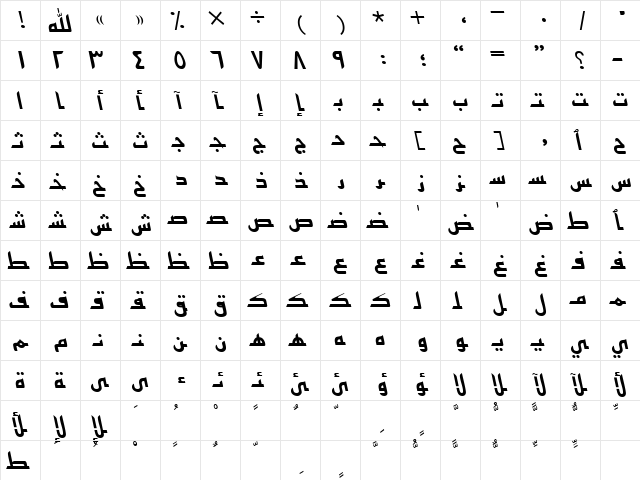
ArabicKufiSSK Italic
Design Context for ArabicKufiSSK Typeface
ArabicKufiSSK is a composed and adaptable typeface that performs quietly and consistently across a wide range of design contexts. Its italic angle brings a sense of urgency and motion to the letterforms.
Pro Tip: Use ArabicKufiSSK for emphasis, pull quotes, and subheadings where its slanted energy can add rhythm to the layout.